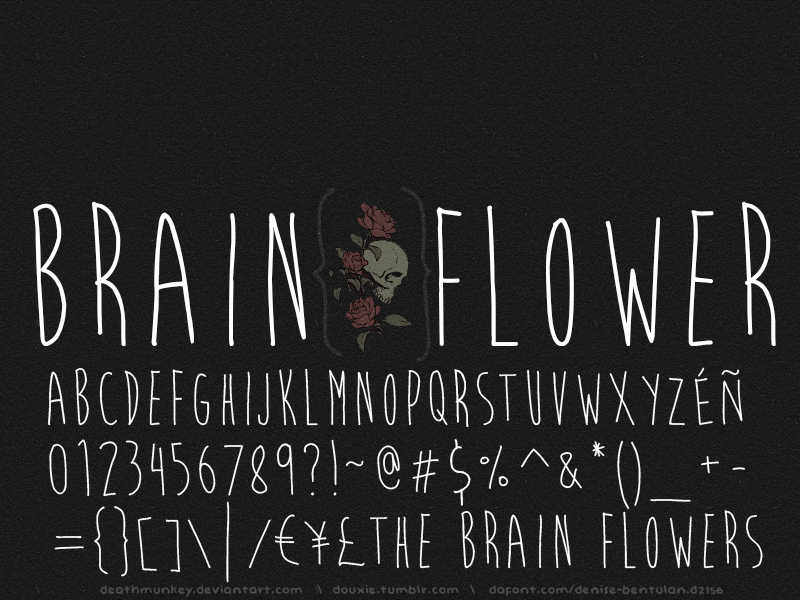
Brain Flower Euro by Denise Bentulan is a free handwritten font with tall, narrow letters and an airy, slightly awkward stance. Uneven heights lend the lettering a candid, fine-pen wobble.
Its schoolbook and craft-table character suits children's publishing, classroom posters, and stationery, especially for projects that want informal lettering with the warmth of a personal note instead of a neat digital hand. For small creative brands, it can shape a friendly product identity across handmade packaging and paper goods by treating each name like a line from the maker's sketchbook.